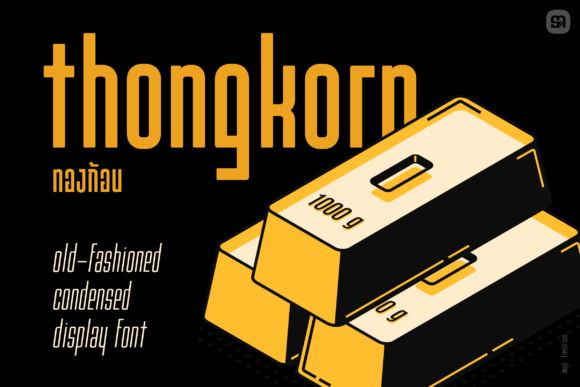
Journey back in time with Thongkorn, an old-fashioned condensed display font that exudes vintage charm and timeless elegance. Crafted by the skilled hands of DHAMMADHA STUDIO, Thongkorn is more than just a font; it's a gateway to a bygone era where nostalgia and modernity converge.
With its condensed structure, Thongkorn effortlessly grabs attention, making it the perfect choice for logos and branding. Its distinct letterforms, reminiscent of classic signage and vintage advertisements, add a touch of uniqueness to your designs. Whether you're creating a striking logo, a captivating poster, or a retro-inspired website, Thongkorn will transport your audience to a world of timeless aesthetics.
Thongkorn's versatility extends beyond logos and branding. It shines in editorial design, adding a touch of sophistication to magazines, brochures, and other print materials. Its condensed nature allows for maximum impact in headlines, subheadings, and pull quotes, ensuring that your message stands out and captivates readers.
For those seeking a distinctive font for their creative projects, Thongkorn is the answer. Its condensed structure lends itself perfectly to eye-catching social media graphics, Instagram posts, and Pinterest pins. Let Thongkorn elevate your online presence and make your content stand out in the crowded digital landscape.
But Thongkorn's allure extends far beyond the digital realm. Its timeless beauty graces physical products as well. Envision your designs adorning handcrafted mugs, tote bags, and apparel, adding a touch of vintage charm to everyday objects. Thongkorn breathes life into packaging, turning mundane products into collector's items.
With Thongkorn, you unlock a world of creative possibilities. Dive into the depths of its retro elegance and let your imagination run wild. Its condensed structure and distinctive letterforms will captivate your audience, leaving a lasting impression that lingers long after they've encountered your designs. Embrace the power of the past and the promise of the future with Thongkorn, the ultimate font for those who appreciate timeless aesthetics.